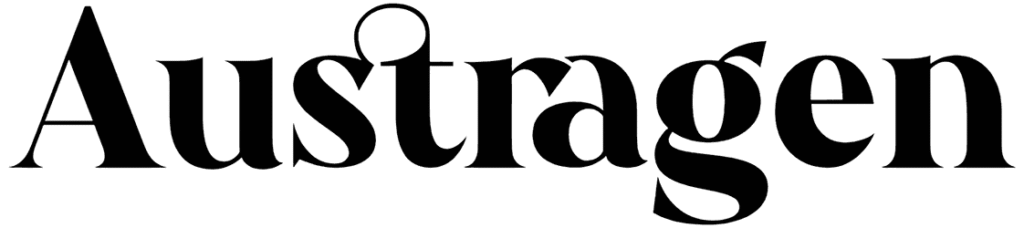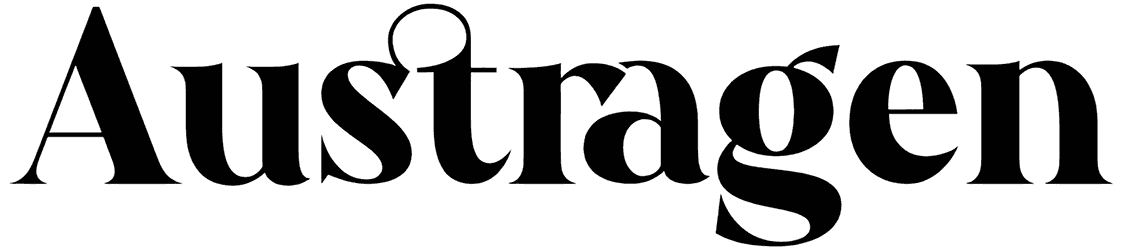
Austragen Font
If you’re working on a project with a reputable company and want to delve into the beautiful, bold world of fonts, Austragen is the way to go. With this serif font, you’ll feel like an expert designer again.
Although it is missing several numerical characters, Austragen still has many important uses, such as books, artwork, signs, apps, and titles. Our font collection, which already has hundreds of fonts, is always growing and has everything from cute to weird fonts.